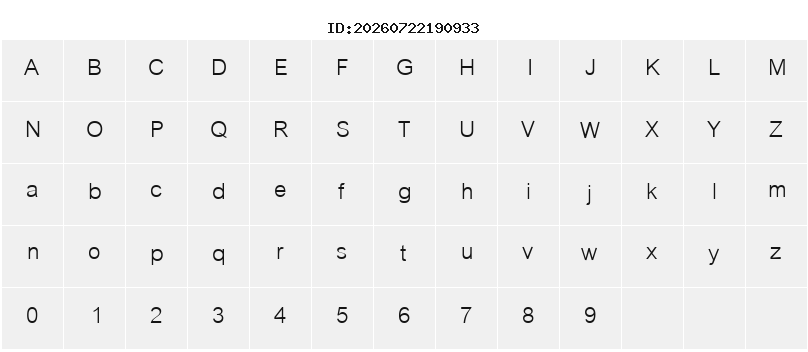
JG Vai B Preview
• Font Name: JG Vai B
• Full Font Name: JG Vai B
About JG Vai B.ttf
JG Vai B.ttf is a modern, elegant sans-serif font designed for ultimate readability and visual harmony. Perfect for branding, headlines, web design, and print materials.